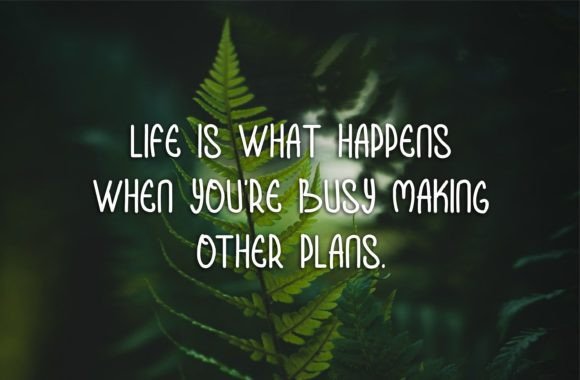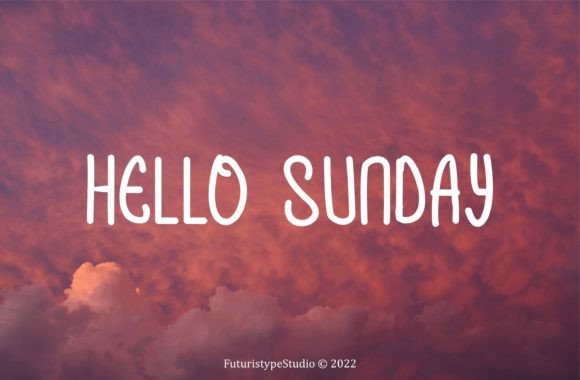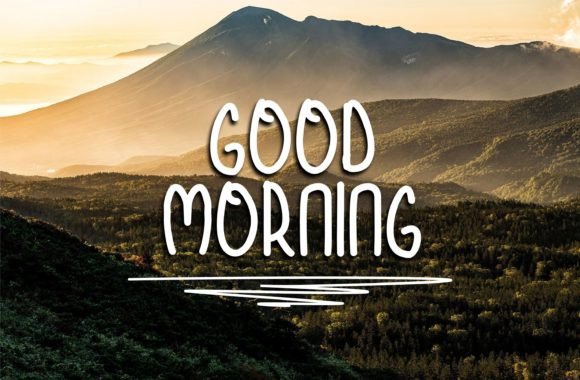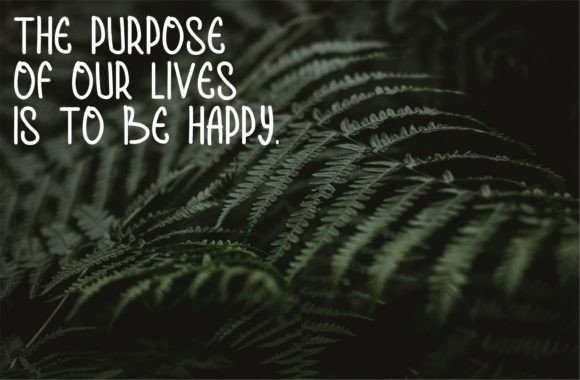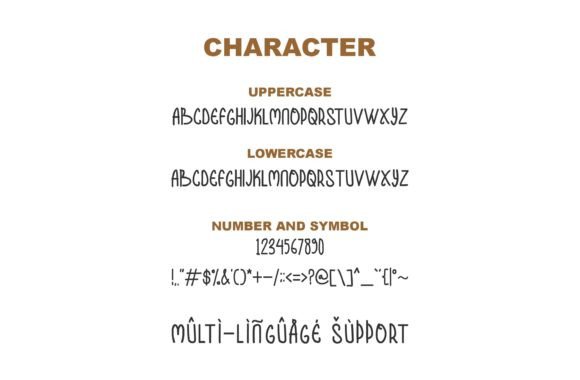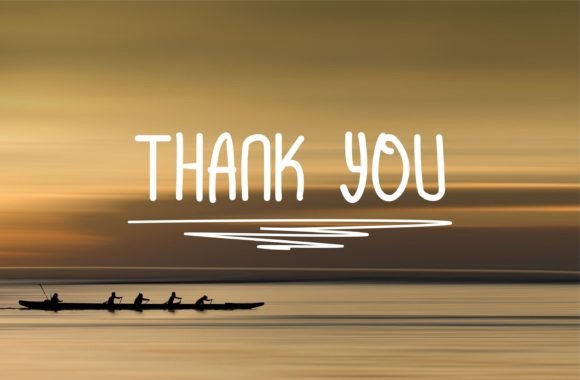
Introduction to Marshalam Font Font
Fonts play a crucial role in design, and the Marshalam Font font is a typeface that brings both character and versatility to any project. Whether you’re working on a branding project, a website, or a print design, the Marshalam Font font offers a unique style that can elevate your work.
Marshalam is a cool and trendy-looking display font that is great for logos, badges, clothing, posters, and other projects that need to stand out from the crowd.
Key Features of Marshalam Font Font
Why Choose Marshalam Font Font?
The Marshalam Font font is more than just a typeface – it’s a design tool that helps you communicate your message with style and clarity. Its unique character set and versatile design make it suitable for a wide range of applications, from elegant invitations to bold headlines.
With its carefully crafted letterforms and balanced proportions, the Marshalam Font font ensures readability and visual appeal across all mediums.
What makes Marshalam Font font special?
The Marshalam Font font stands out with its unique design, exceptional readability, and versatility across various design applications.